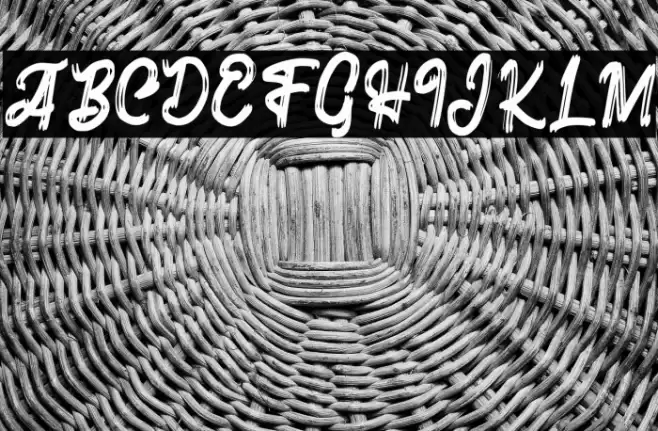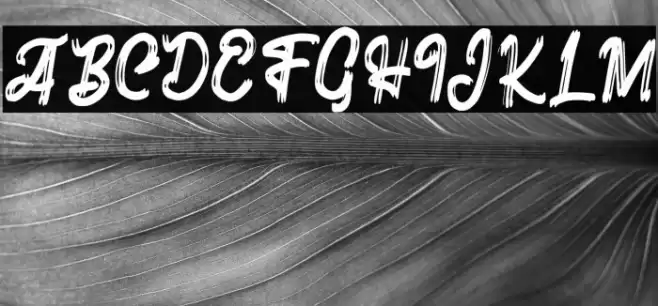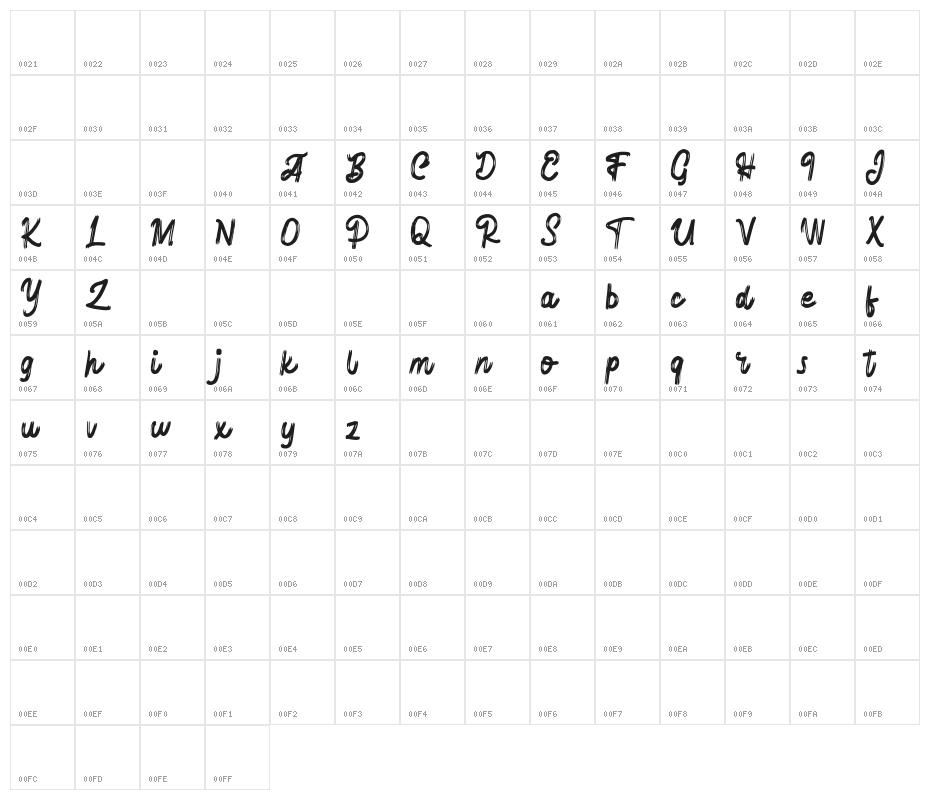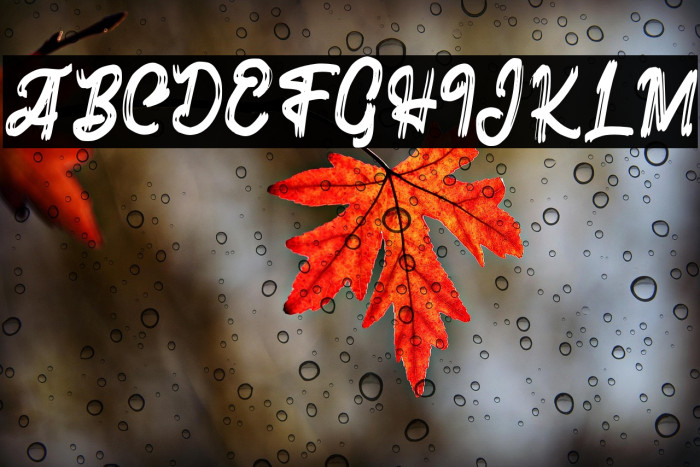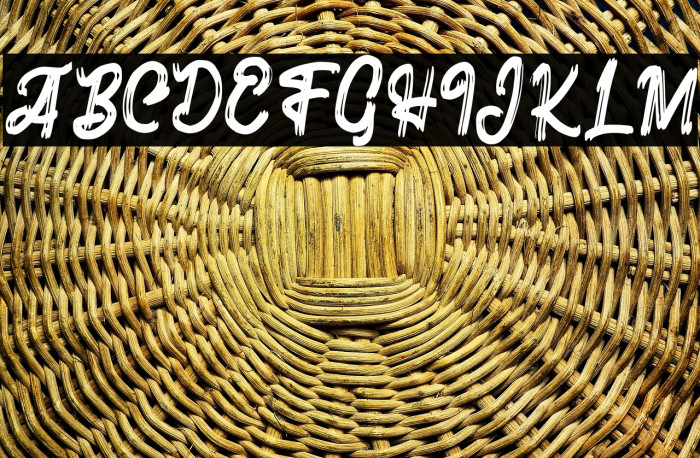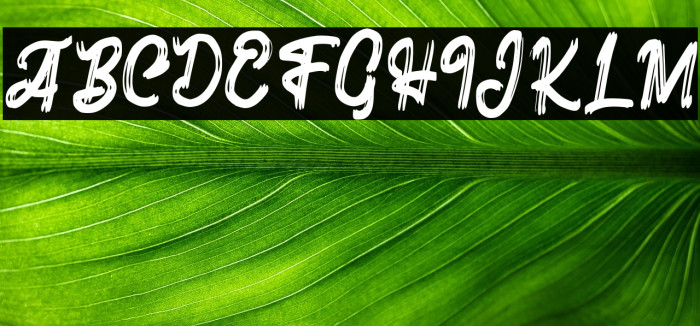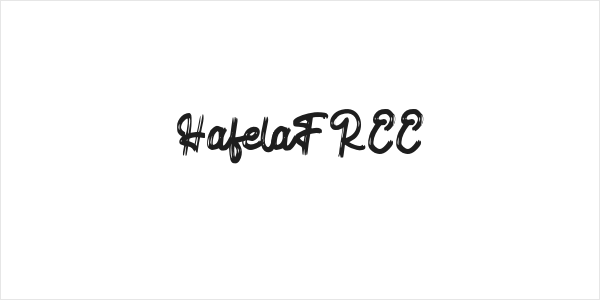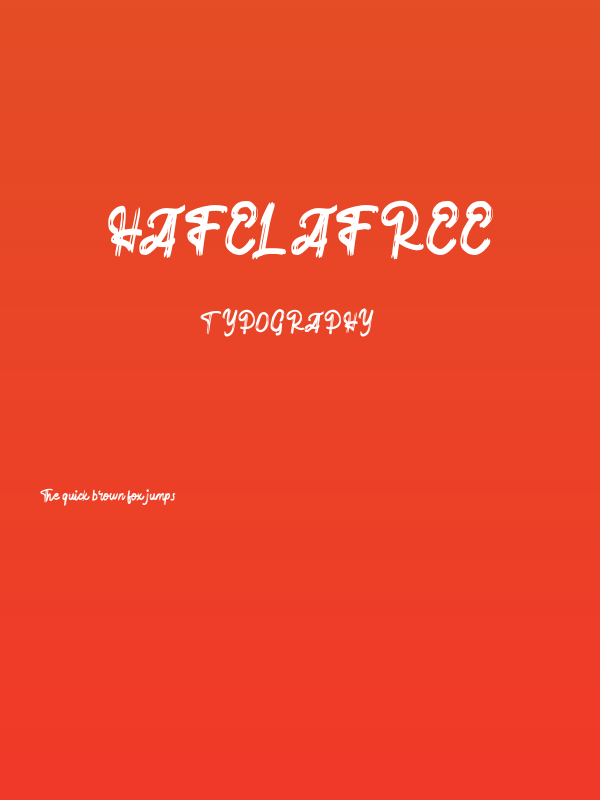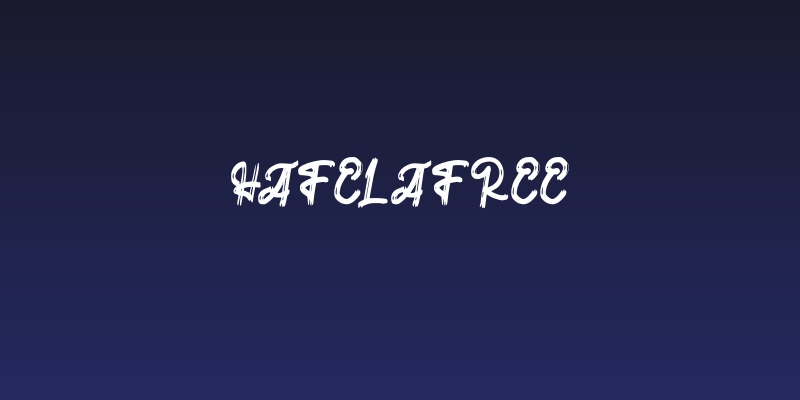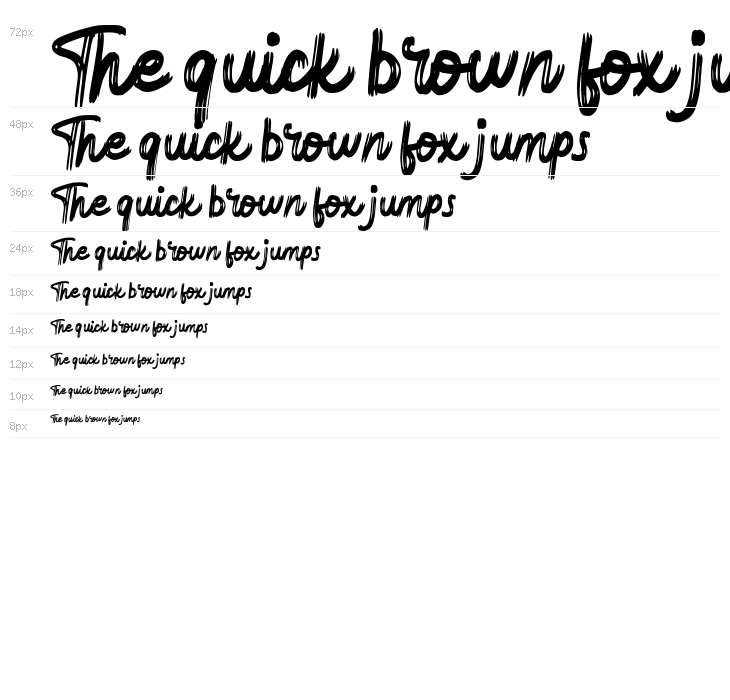
HafelaFREE Font
HafelaFREE Description
This font features a bold, expressive brush style that gives it a dynamic and energetic appearance. The strokes are thick and uneven, mimicking the natural flow of hand-painted lettering. Each character has a unique flair, with varying stroke widths that add a sense of movement and spontaneity. The uppercase letters are particularly striking, with dramatic curves and angles, while the lowercase letters maintain a consistent style that complements the uppercase set. This font is ideal for projects that require a bold statement or a creative touch.
A bold, expressive brush-style font with dynamic, hand-painted strokes from Uncategorized fonts.
- Font: HafelaFREE
- Proposed Projects: This font is perfect for creative projects such as posters, logos, branding, and social media graphics where a bold and artistic statement is needed.